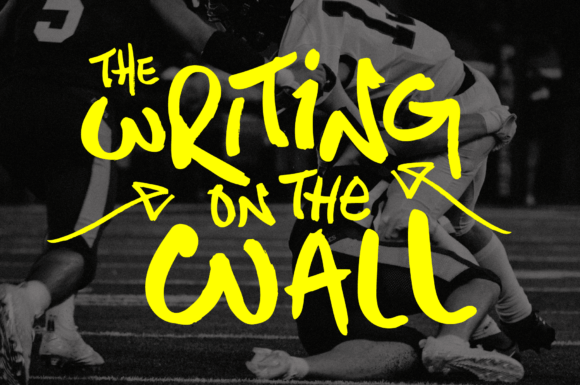
Permanent Park Font
A hand-drawn marker pen font inspired by graffiti tags and 1990s Hip Hop.
Permanent Park is a marker pen font with a graffiti tag aesthetic inspired by the golden age of Hip Hop and 1990s TV shows. It’s 100% hand-drawn.
It’s a uniquely fun, urban-looking font, typical of 90s music videos and TV shows, and equally suited to sports, travel, and food themes.